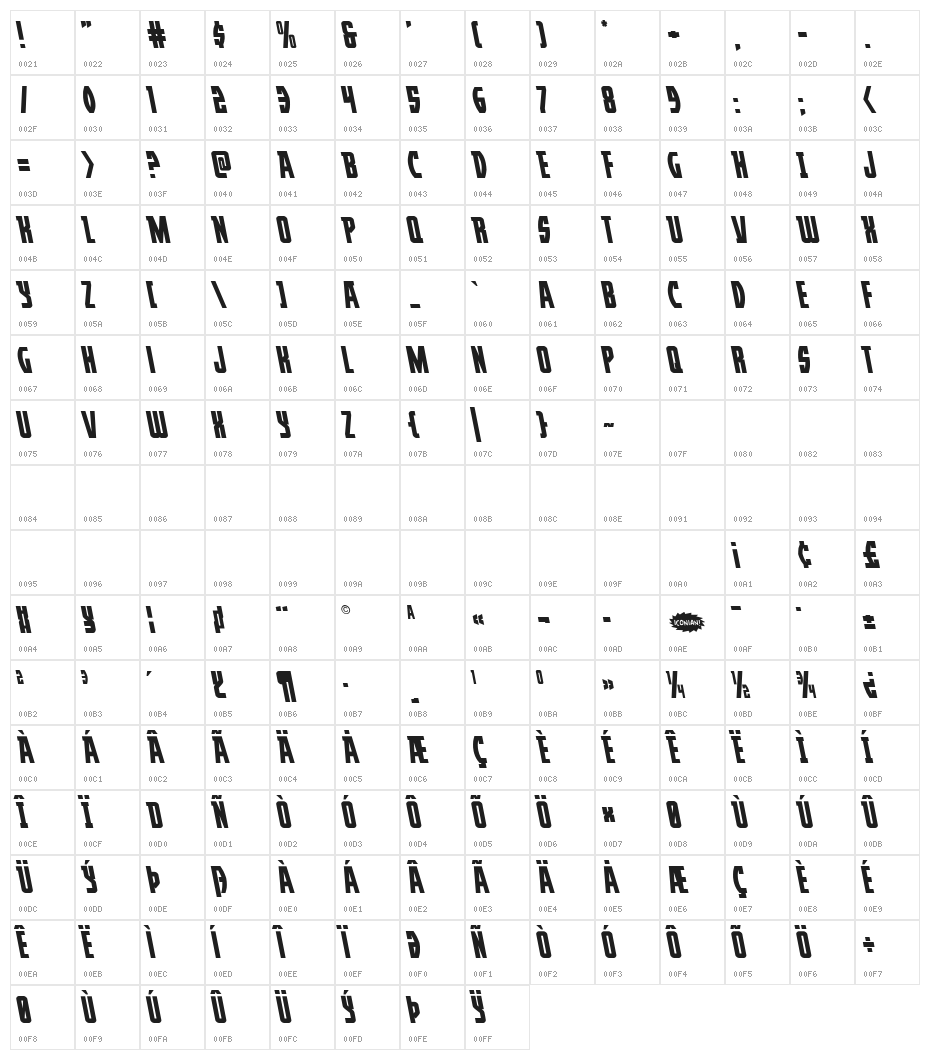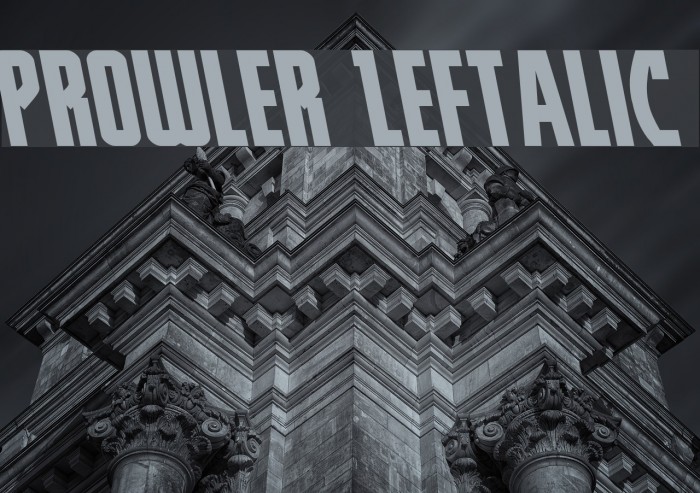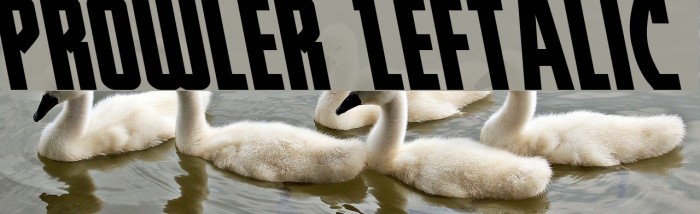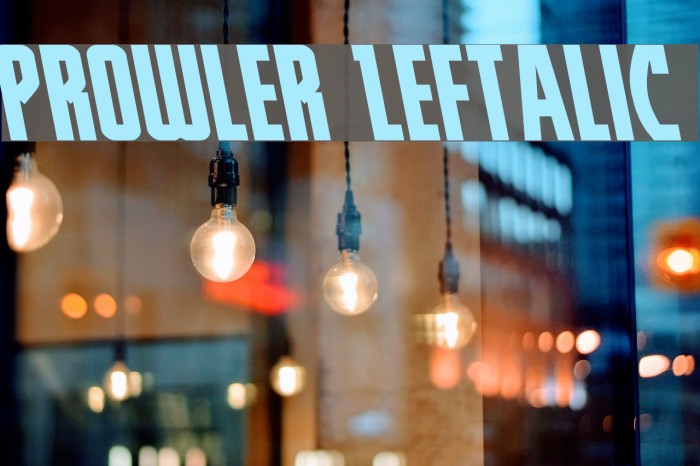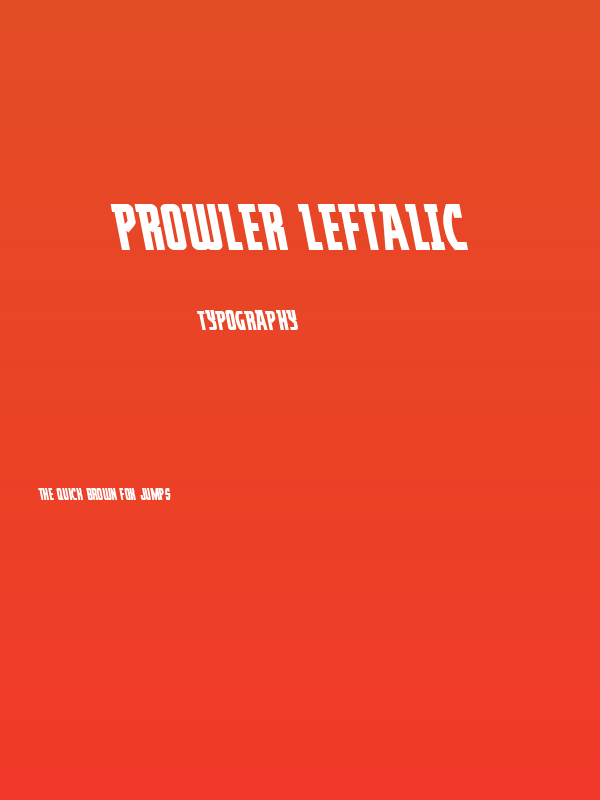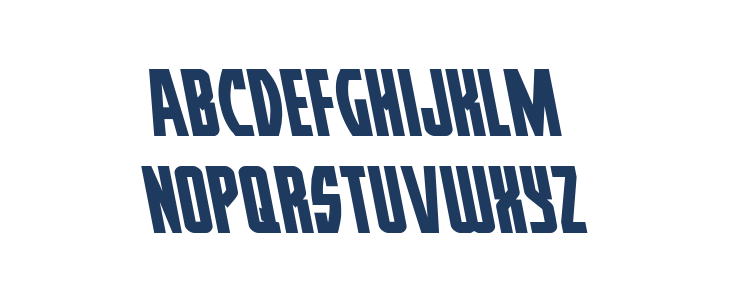
Prowler Leftalic Font
Prowler Leftalic Description
This font features a bold and dynamic style with a distinct leftward slant, giving it a sense of motion and energy. The characters are thick and angular, with sharp edges and a slightly condensed form. This design creates a strong visual impact, making it suitable for attention-grabbing headlines and titles. The uppercase and lowercase letters maintain a consistent style, while the numerals and special characters are equally bold and striking. The overall appearance is modern and assertive, ideal for projects that require a powerful and memorable typographic presence.
| Proposed Projects | Ideal for posters, logos, sports branding, and any design requiring a bold statement. |